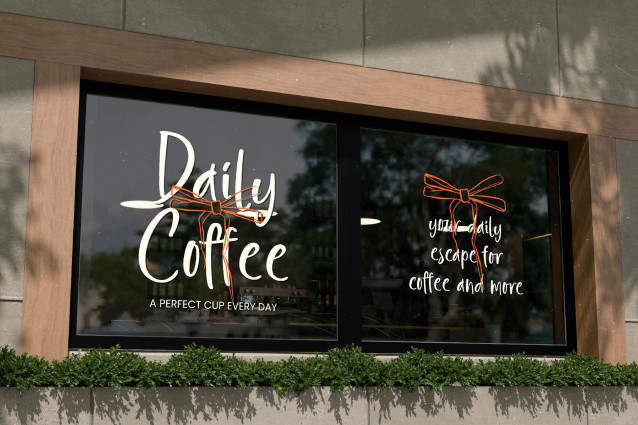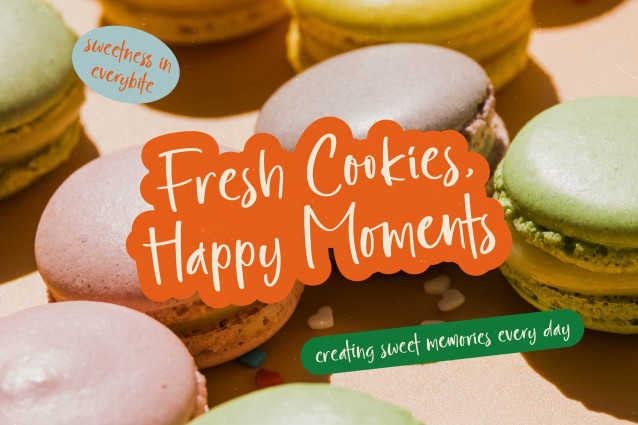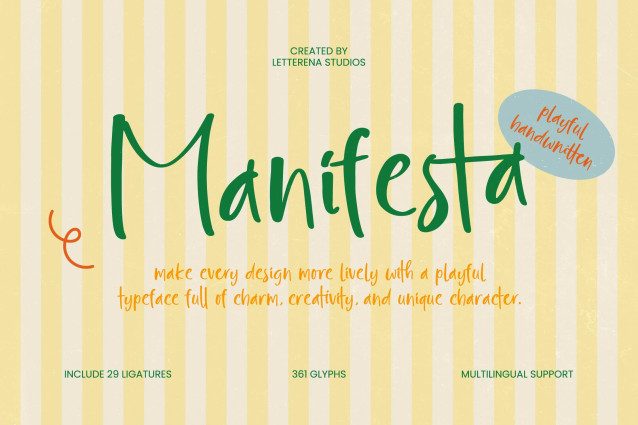
Manifesta – Playful Handwritten Font
Manifesta – Playful Handwritten is a masterfully crafted font designed to bring a lively visual rhythm to any project, blending a casual, organic feel with professional execution. Its unique character and fluid strokes ensure your message stands out with a creative edge that feels both personal and polished.
Experience the perfect synergy of artistic flair and functional depth. With an impressive collection of 29 ligatures and 361 glyphs, Manifesta – Playful Handwritten offers designers the flexibility to create custom, hand-rendered aesthetics without sacrificing readability. This typeface is more than just a font; it is a dynamic design tool built to inject energy and unparalleled charm into modern typography.